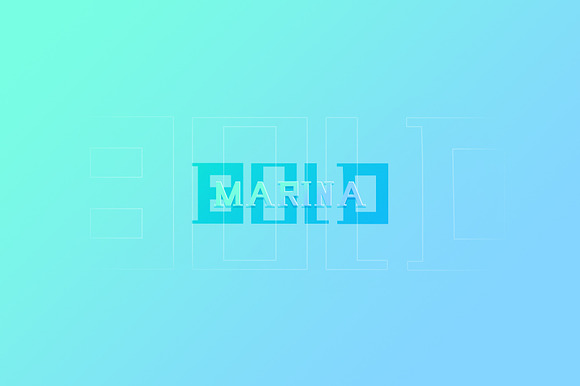
MARINA New BOLD Font
MARINA font build to be BOLD A new BOLD Font build to use as a strong font for logos, title, print,
Why MARINA New BOLD Font is worth a look
MARINA New BOLD Font by aliidentity fits naturally into Branding, posters, packaging, typography.